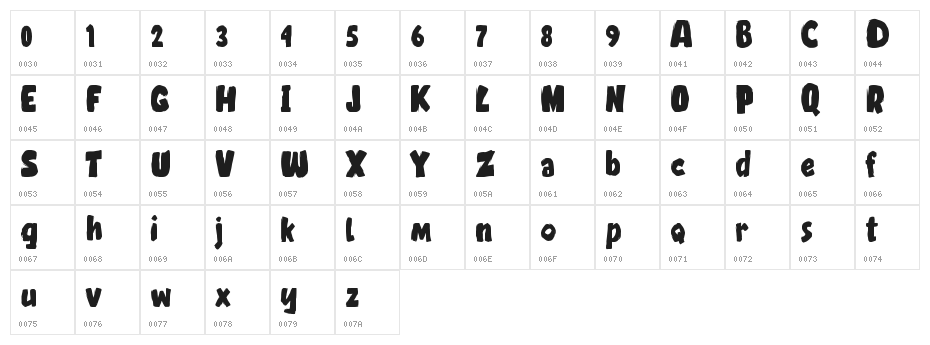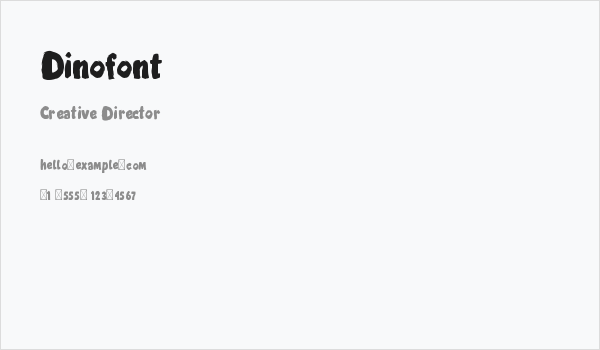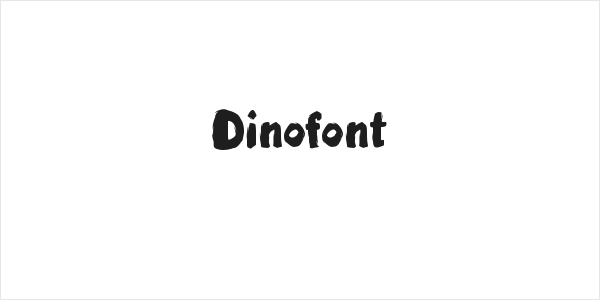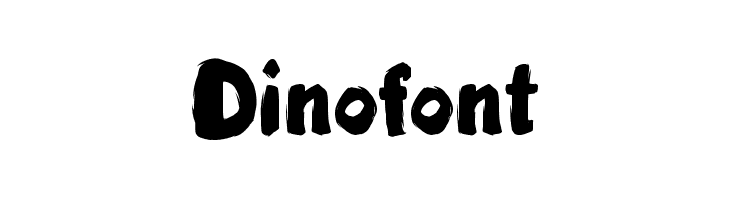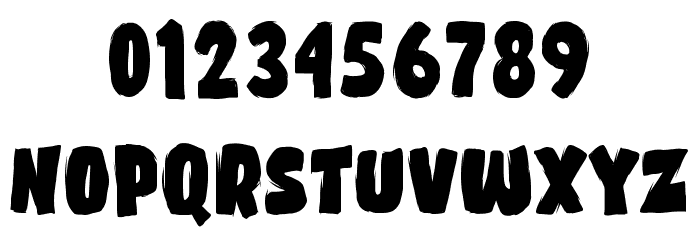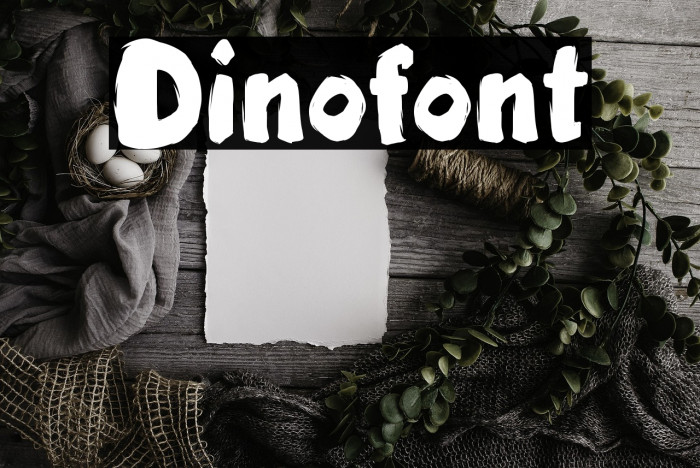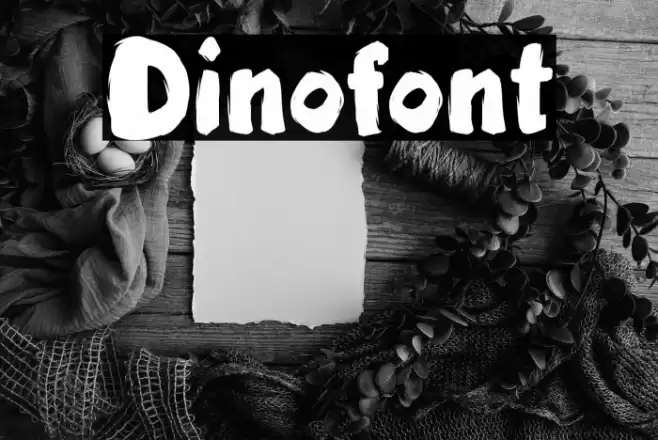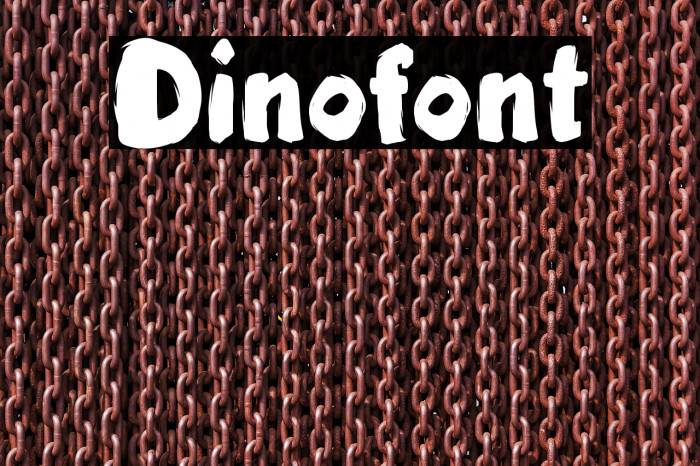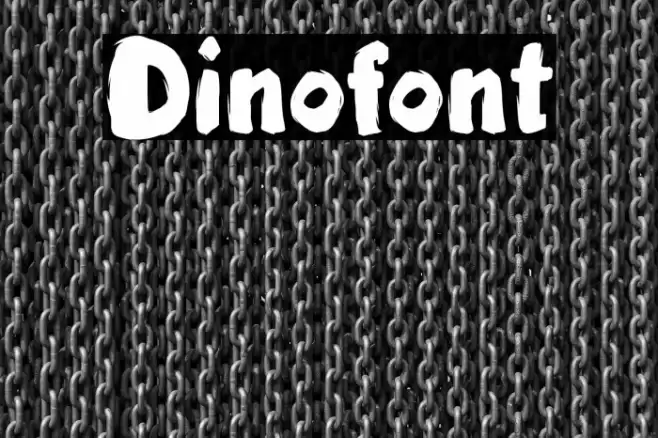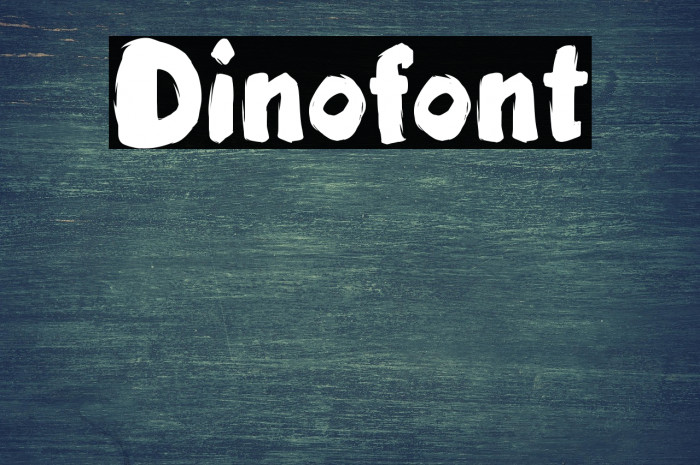
Dinofont Font
| Gesamtstil | Playful, Organic, Primitive |
| Vorgeschlagene Projekte | Perfect for children's books, playful branding, event posters, and creative projects that require a fun and informal touch. |